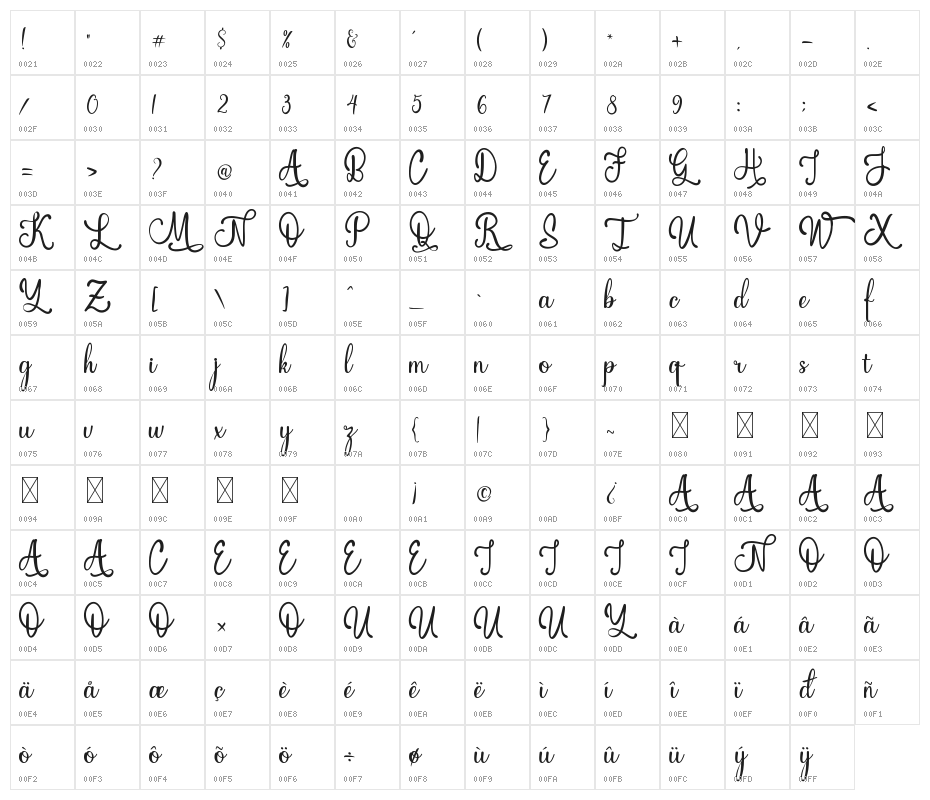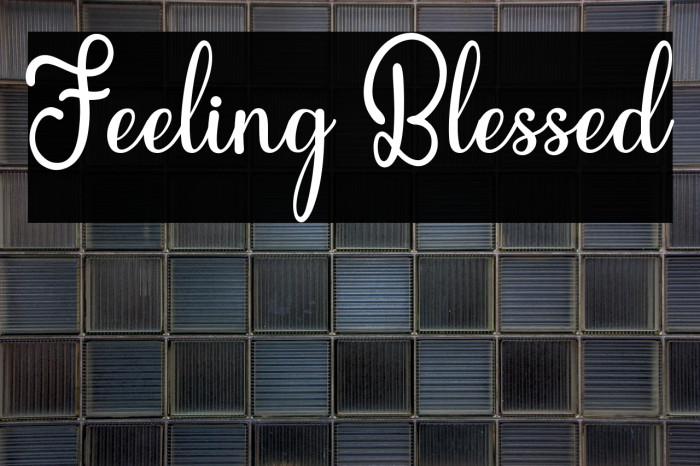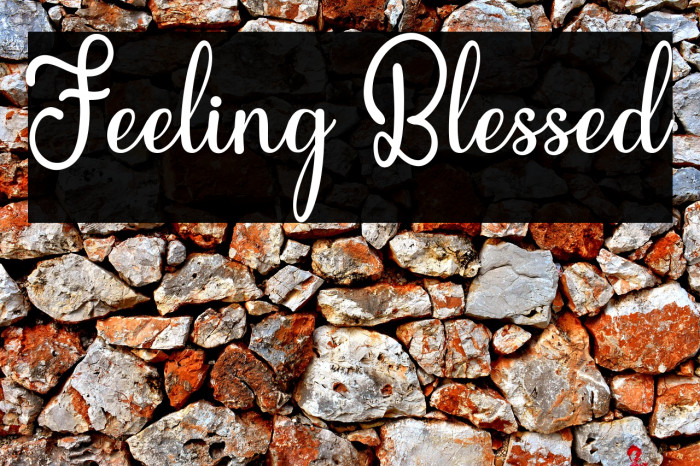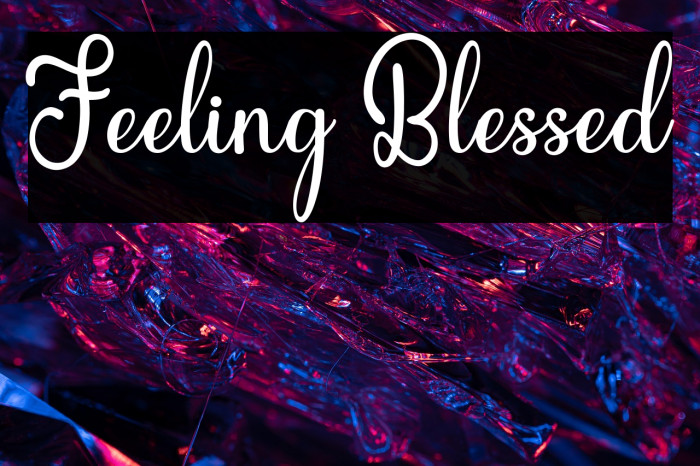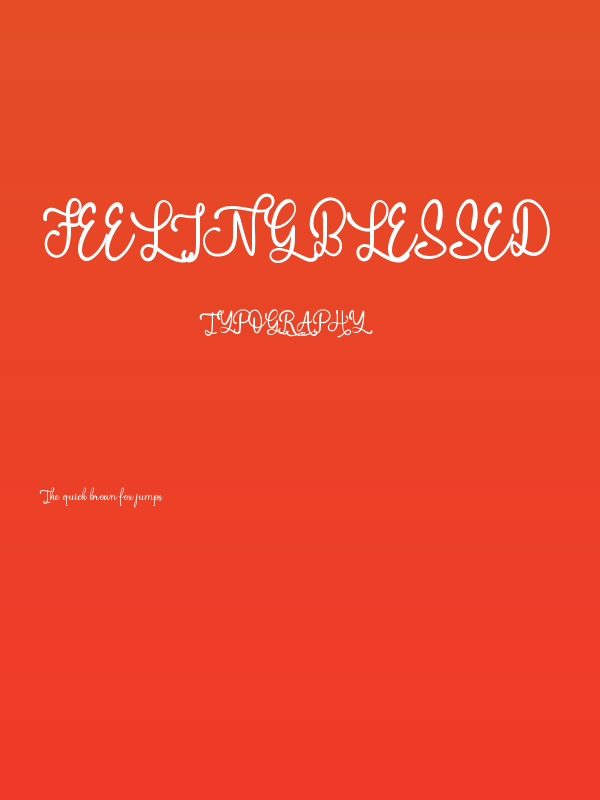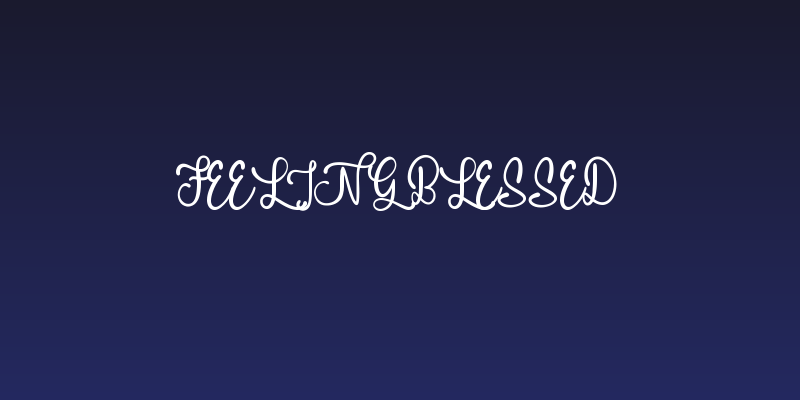
Feeling Blessed Font
This font features a playful and elegant script style, characterized by its flowing, cursive letterforms. The uppercase letters are adorned with intricate loops and swirls, adding a touch of sophistication and flair. The lowercase letters maintain a consistent, smooth flow, making them highly legible despite their decorative nature. Numbers and special characters are designed to match the overall aesthetic, ensuring a cohesive look across all text. The font's design is both modern and timeless, making it suitable for a variety of uses.
Use CaseLogos, Headlines, Invitations
Proposed ProjectsIdeal for wedding invitations, greeting cards, branding, and social media graphics.